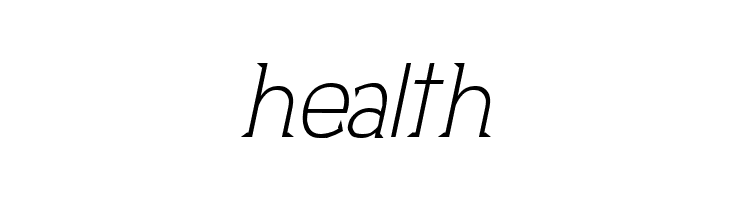
UptownElegance Font
A modern, elegant font with clean lines and geometric structure.
UptownElegance-Bold Font
A bold, modern font with geometric and elegant features.
UptownElegance-BoldItalic Font
A bold and italicized font with a modern, elegant style.
UptownElegance-Italic Font
A sophisticated italic font with sleek, elongated letterforms.